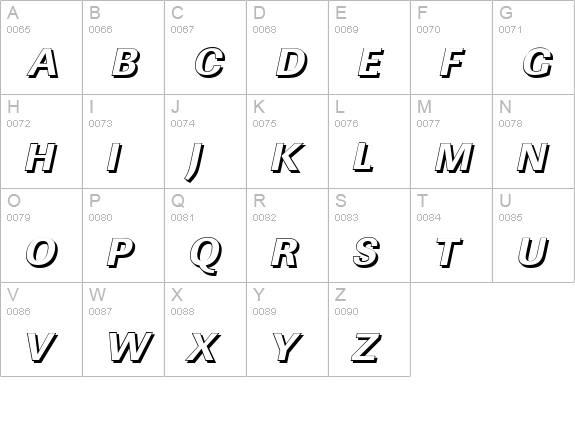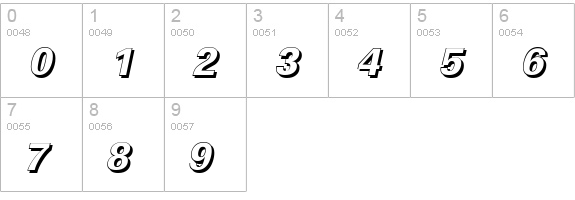
LinearSh-Xbold-Italic is a distinctive, italic variant in the LinearSh typeface family \xE2\x80\x94 well suited to design and typography projects.
LinearSh-Xbold-Italic is a sleek and modern font that exudes sophistication and elegance. Its bold and italicized design adds a touch of drama and flair to any project. Ideal for headlines, titles, and branding, this font is versatile and eye-catching. The clean lines and streamlined look of LinearSh-Xbold-Italic make it a perfect choice for both digital and print applications. Whether you're designing a website, creating a logo, or working on a poster, this font will elevate your design and make a lasting impression. Best of all, LinearSh-Xbold-Italic is completely free to download at FontsMarket.com. This means you can access this stylish font without any cost, making it a valuable addition to your font collection. Don't miss out on the opportunity to enhance your design projects with the bold and striking aesthetic of LinearSh-Xbold-Italic.